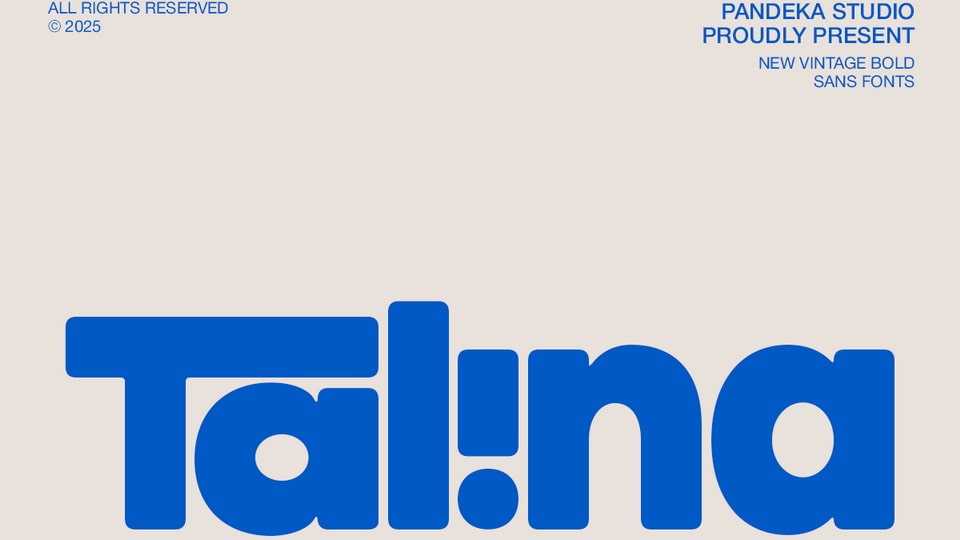
Download Talina font, a bold, rounded sans-serif typeface with a bubbly and playful personality, designed to grab attention while remaining friendly and easy to read.